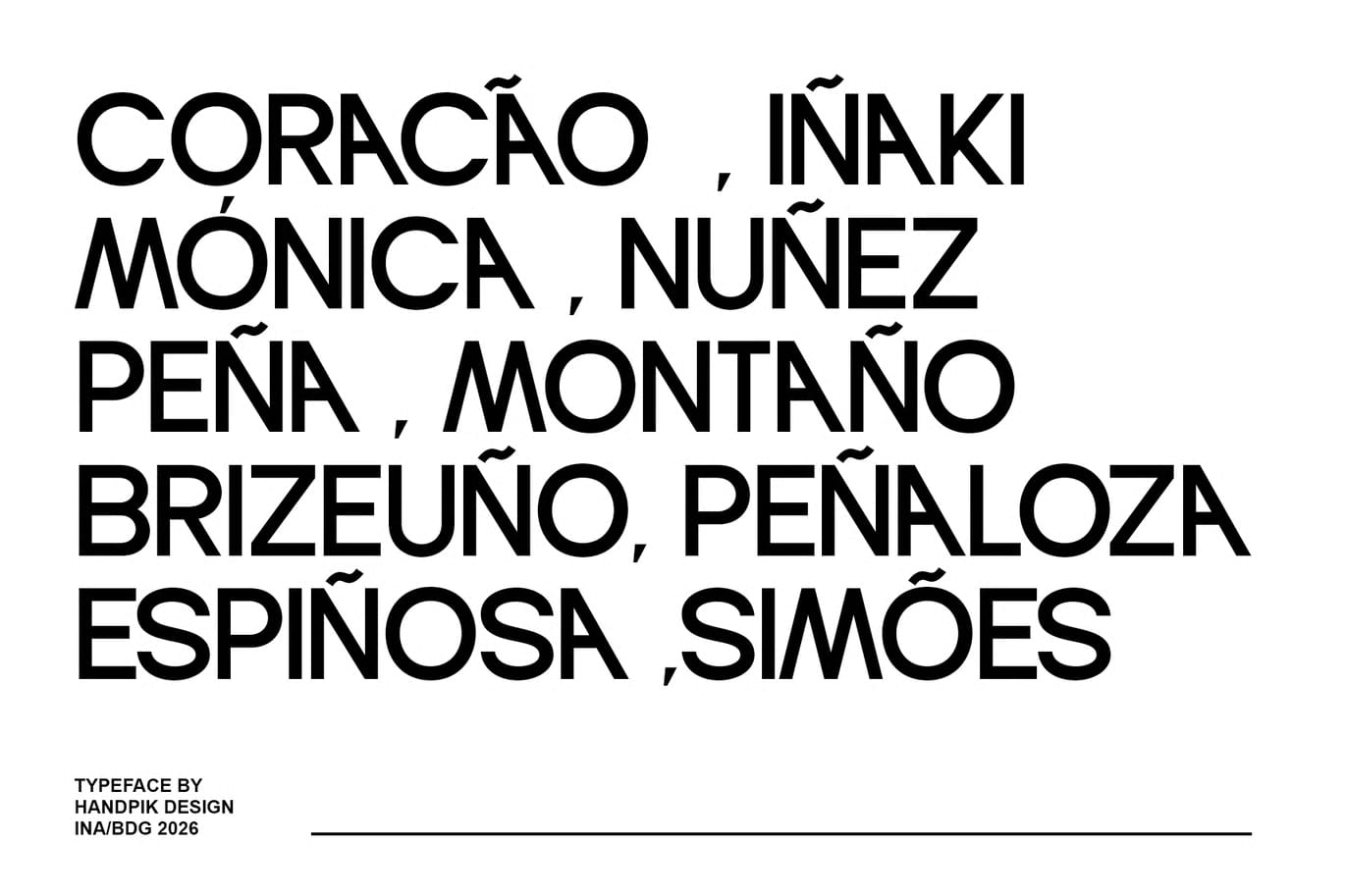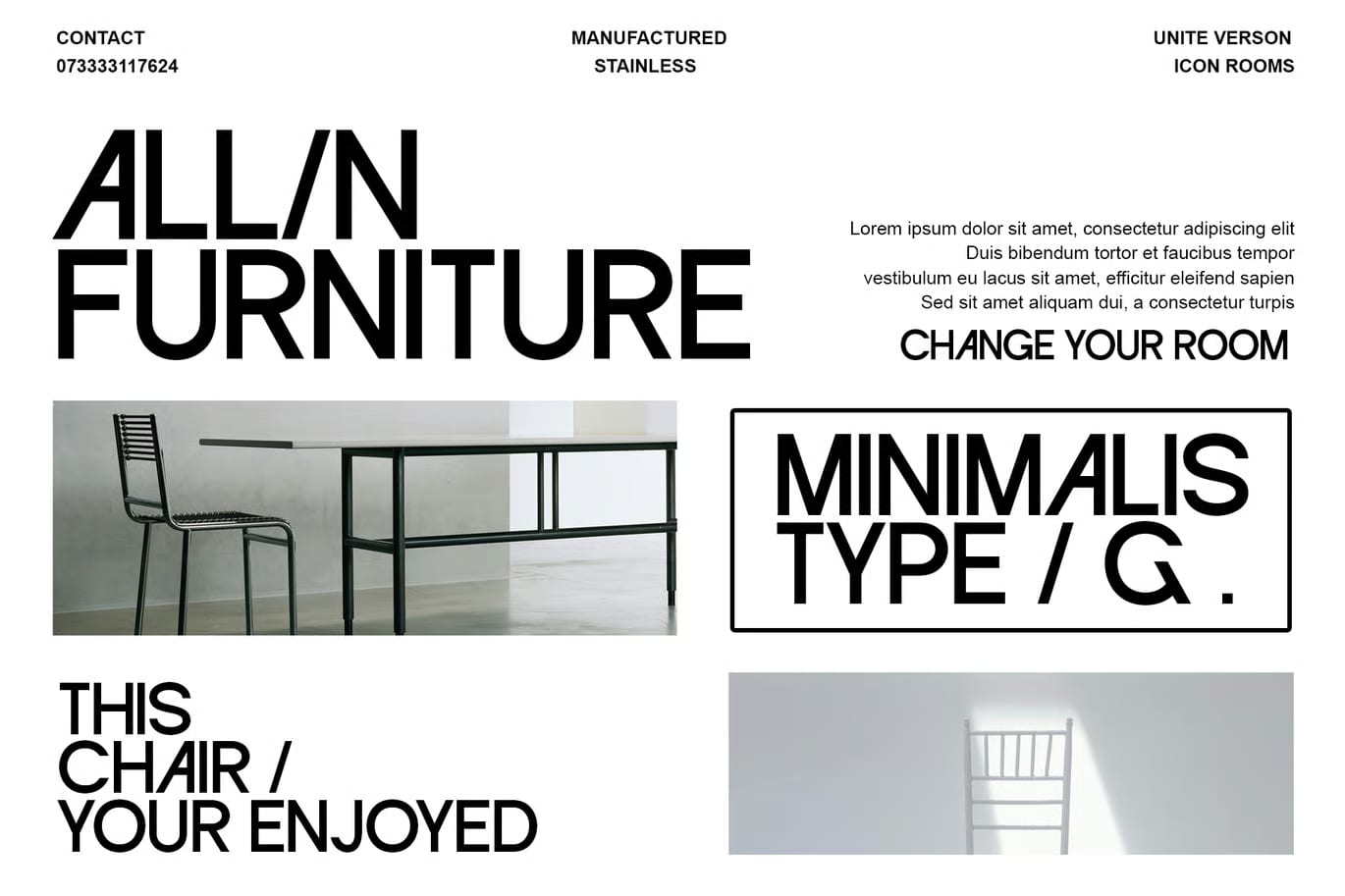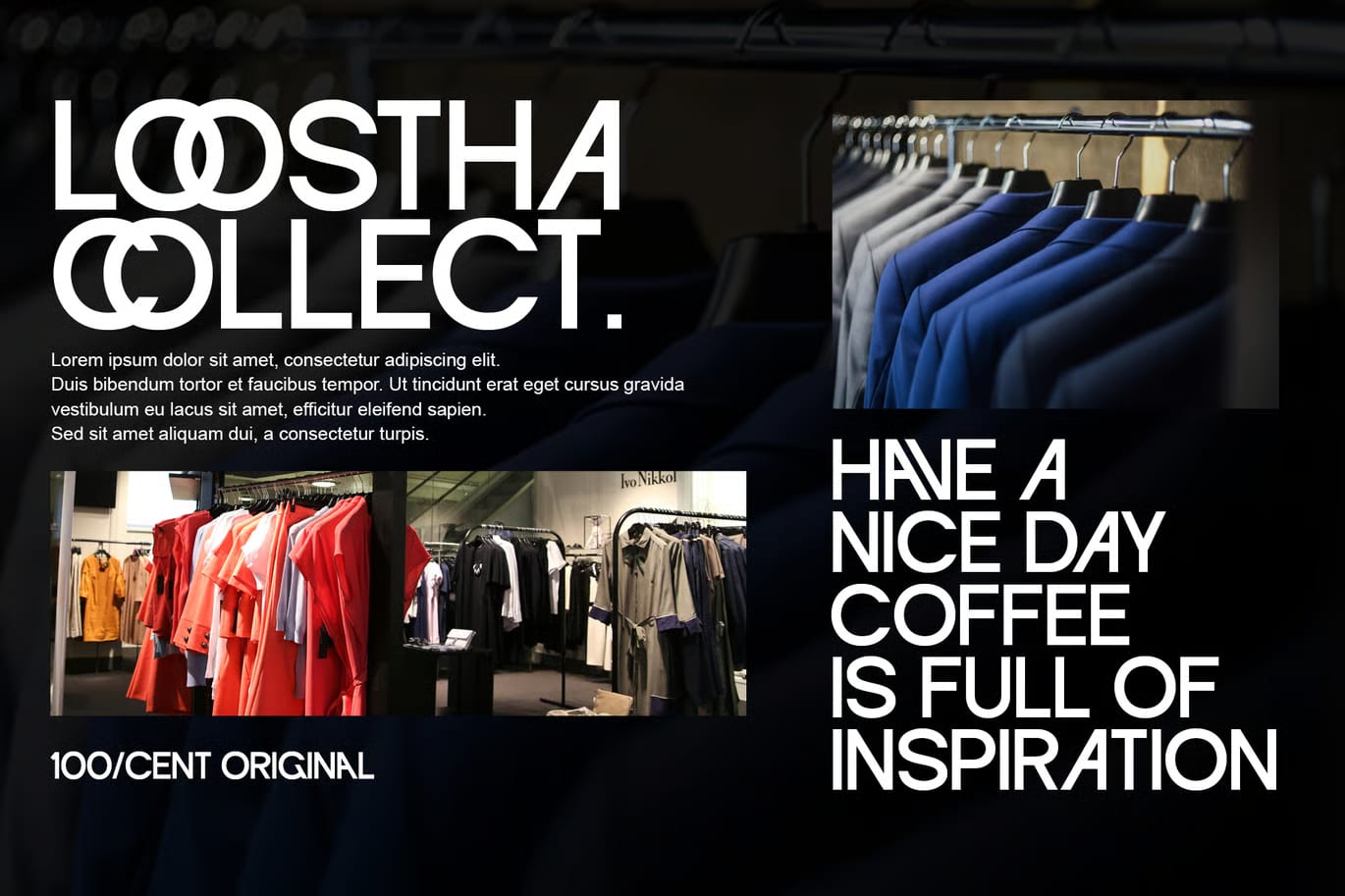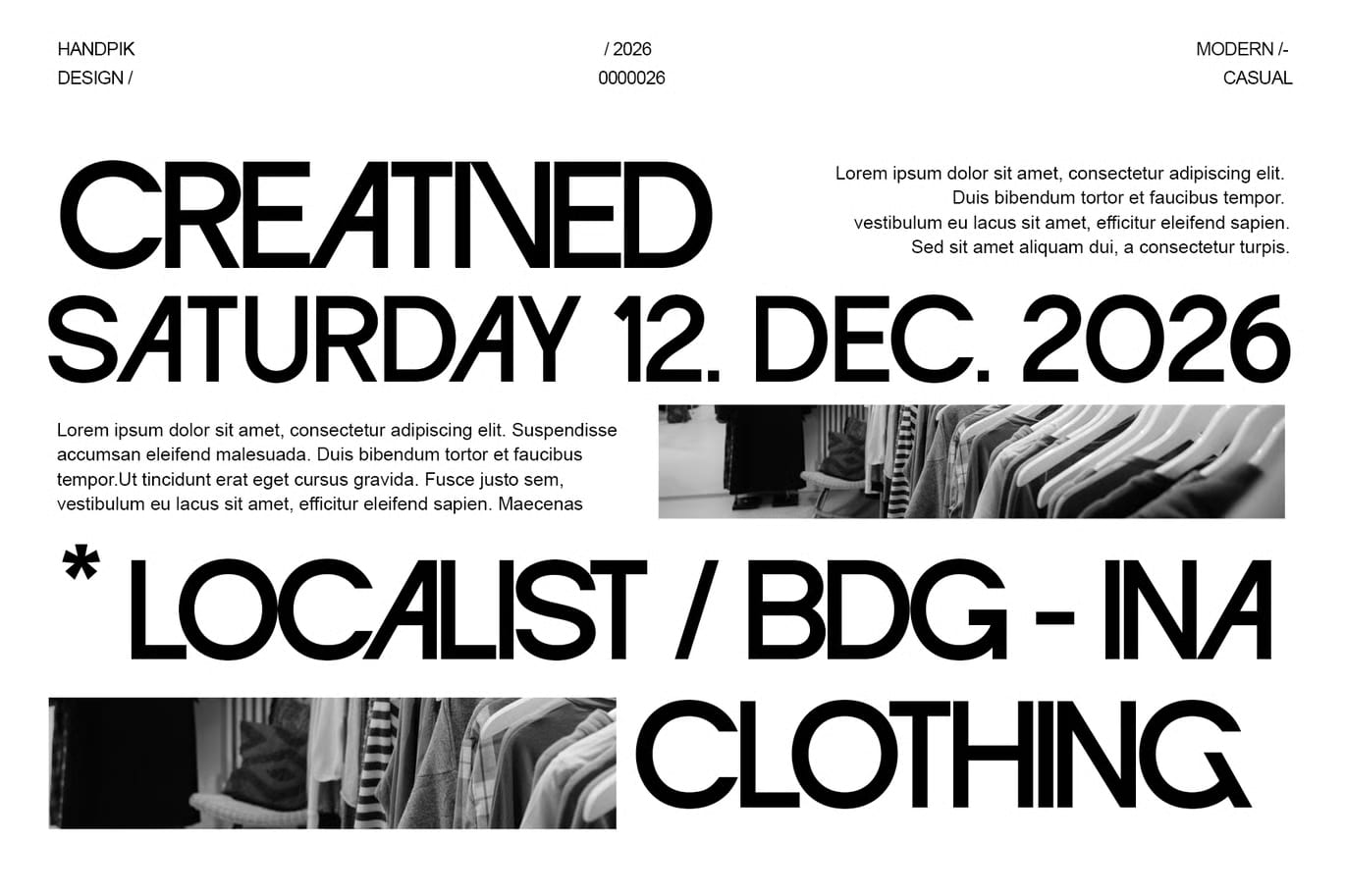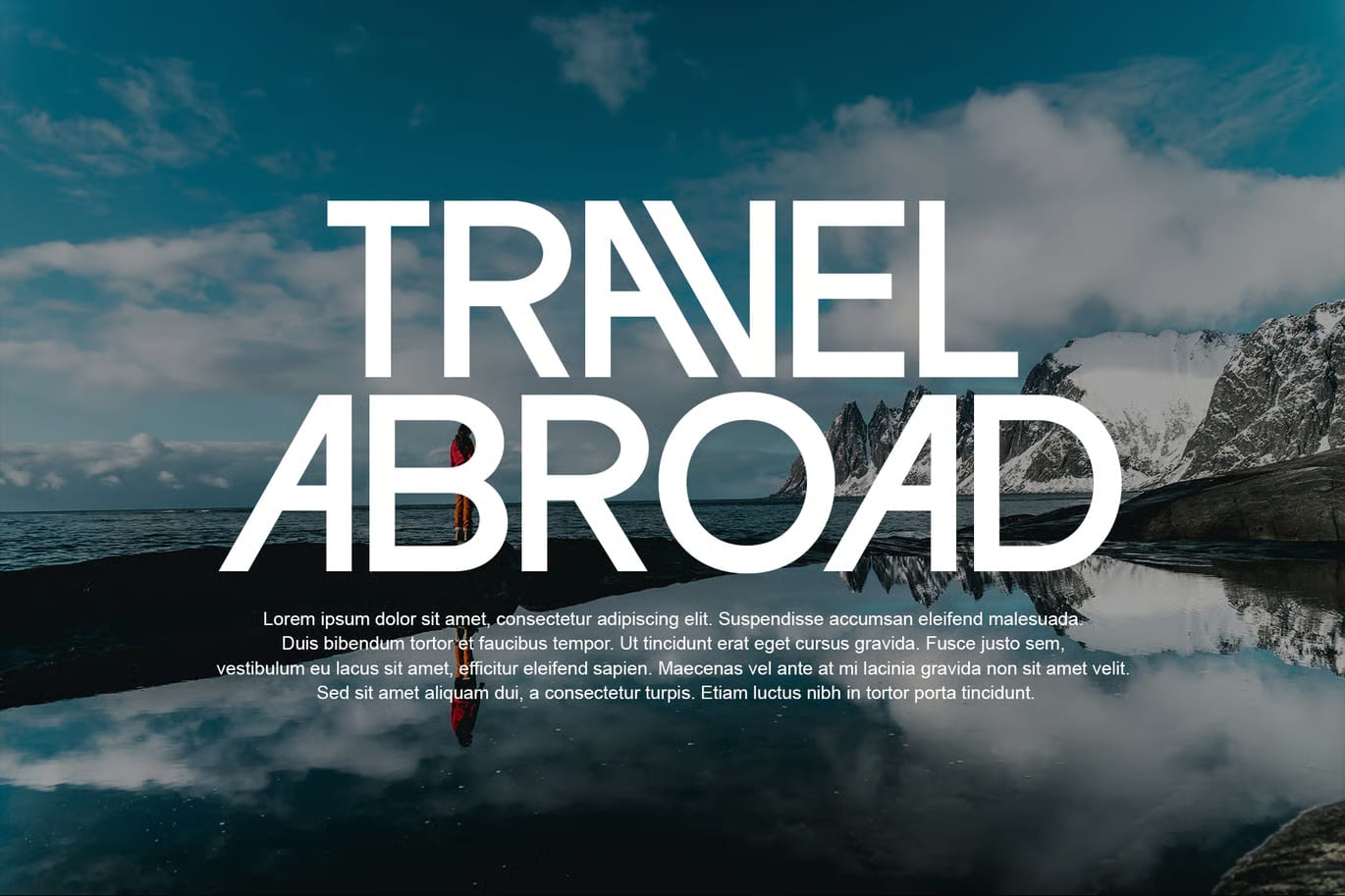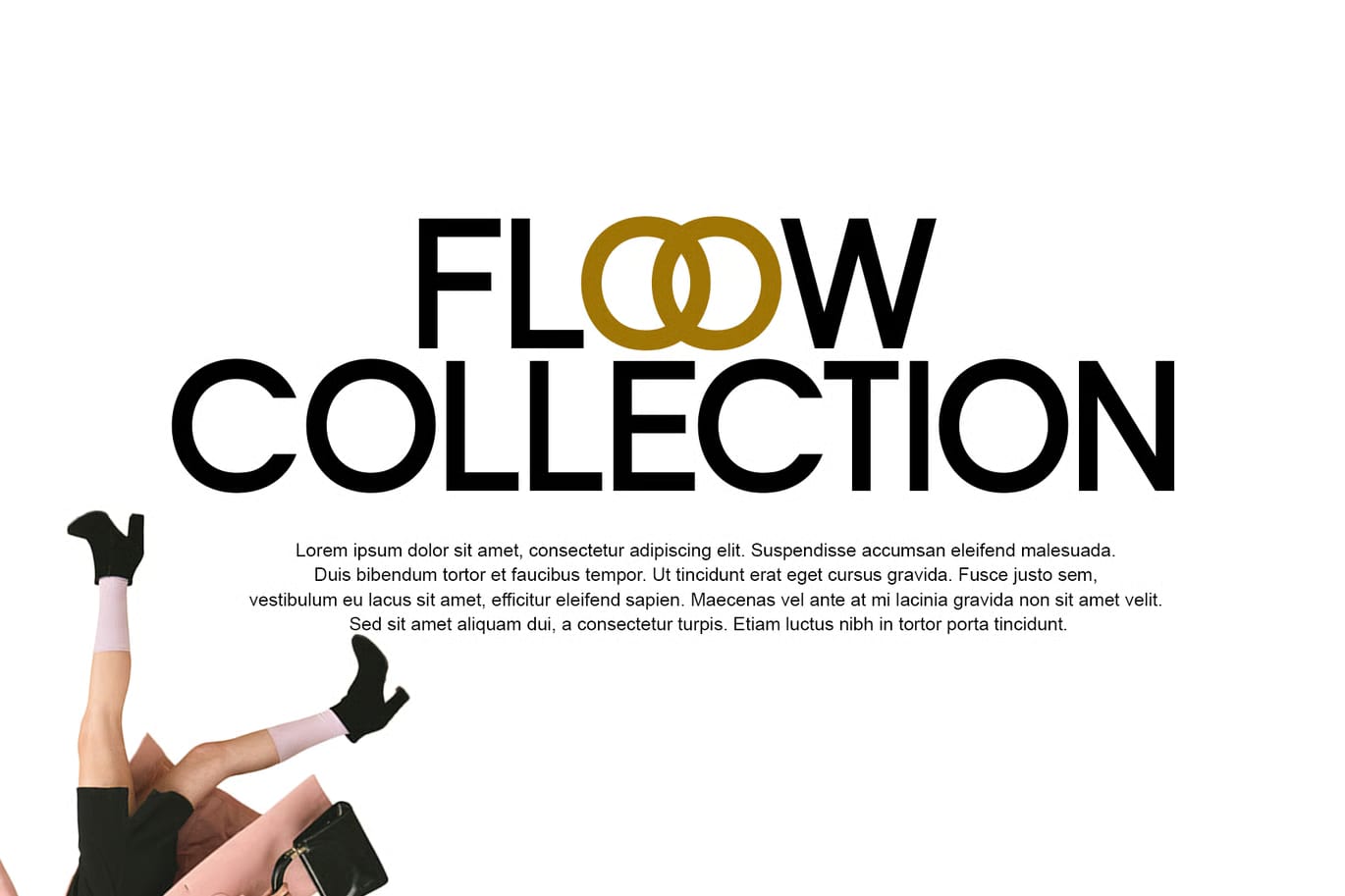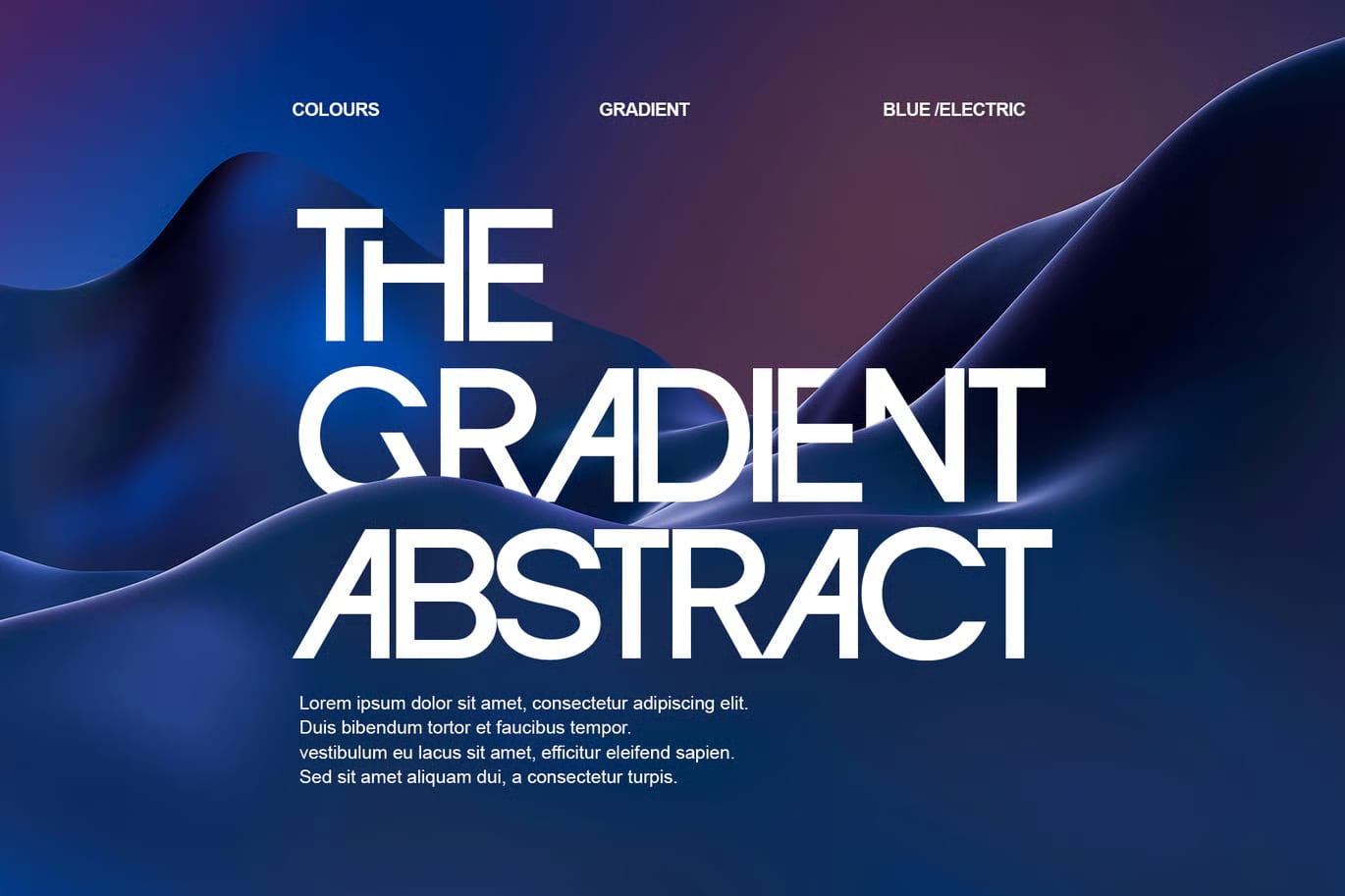
This modern sans-serif font has a clean and bold feel with a slightly futuristic look. It follows a minimalist style, so the letterforms stay precise and well balanced, giving it a neat appearance that works well in both simple and polished designs.
One of the most noticeable parts of the typeface is its geometric character and the use of special ligatures, including the connected “OO” shape that adds a memorable touch. That small detail gives the font a more creative edge while keeping it easy to read.
The letters have a solid structure with soft rounded corners, which helps the font feel modern without becoming too sharp or cold. The spacing between characters also helps create a clean, premium look that fits nicely in display work.
This font is a good choice for branding, posters, headlines, fashion layouts, technology themes, and other creative projects that need a strong but refined style. It is designed for use at any size and includes uppercase, lowercase, numerals, and functional characters.